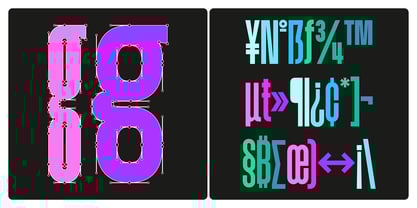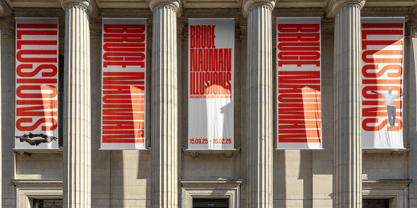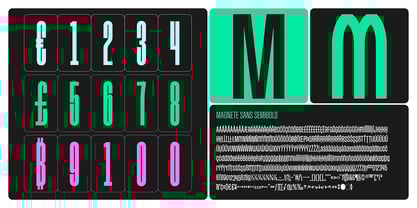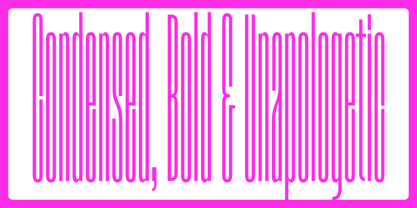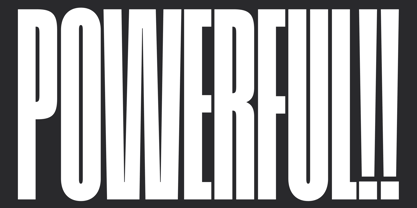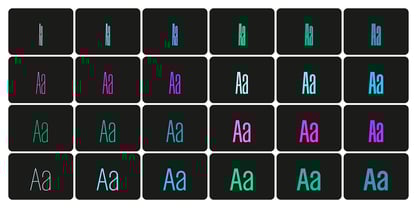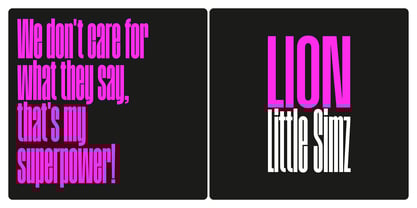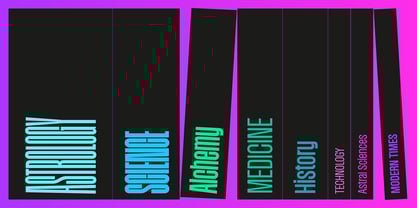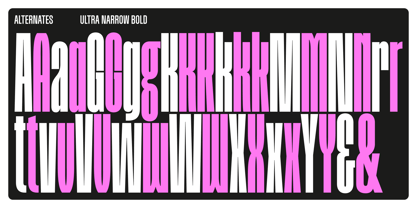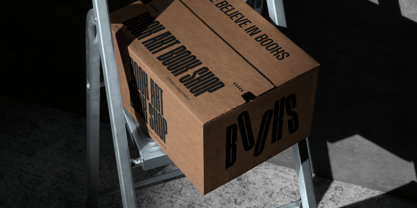
Magnete Sans
The Magnete Sans Font Family was designed by Andrej Sevcik, Fabrizio Falcone and published by Narrow Type. Magnete Sans contains 24 styles and family package options.
Magnete Sans is a bold and flexible condensed sans serif family available in 4 widths — Ultra Narrow, Standard, and Expanded — with 6 weights each, from Extralight to Bold, totaling 24 styles. Designed for impact, this display sans serif is ideal for branding, editorial design, posters, packaging, and digital interfaces. Rooted in early 20th-century grotesks like Aurora and Inserat-Grotesk, Magnete Sans reinterprets these classic styles with a contemporary twist. It blends historical depth with refined details and modern versatility. The name Magnete is inspired by the magnetosphere — a space shaped by invisible forces, much like the dynamic tension within this typeface’s letterforms. It also subtly nods to Aurora, the original design influence, referencing the Aurora Borealis and its magnetic origins. Magnete Sans includes multiple stylistic alternates to reflect both the original and its reinterpretations: the legs of k, R, and Kcome in vertical, curved, and diagonal versions; t is available in both angled and horizontal styles; and straight or curved diagonals can be selected for vwxy and AMNVWXY. This versatility allows for a tailored tone — from strict and bold to more softer and fluid. With a Latin Extended character set and OpenType features like old-style and tabular figures, fractions, case-sensitive forms, and more, Magnete Sans is both expressive and technically robust. Whether you’re looking for a narrow sans for tight layouts or a bold, geometric grotesk for punchy headlines, Magnete Sans adapts effortlessly.